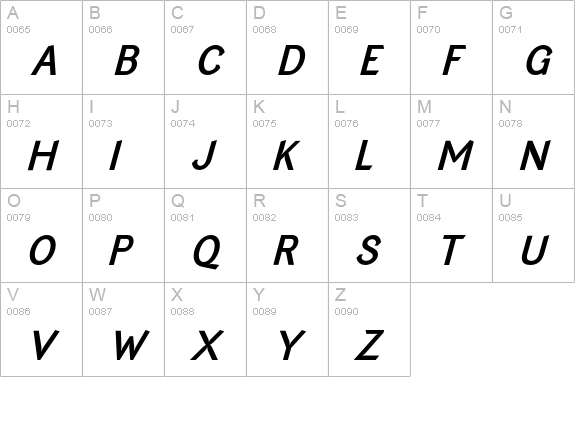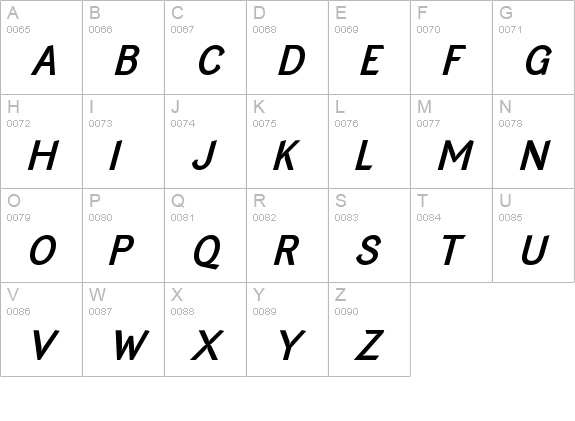
EquipoizeSans-BoldItalic Font Details
EquipoizeSans-BoldItalic is a modern and stylish typeface designed to make a bold statement with its sleek and sophisticated appearance. This unique font strikes the perfect balance between elegance and boldness, making it ideal for a wide range of design projects. Its italicized form adds a touch of flair and dynamism to any text, making it stand out and captivate the reader's attention. What makes EquipoizeSans-BoldItalic even more appealing is that it is available for free download at FontsMarket.com. This means that you can easily access and use this stunning font in your projects without any cost, allowing you to elevate your designs without breaking the bank. Whether you're designing a logo, creating marketing materials, or crafting a stylish website, EquipoizeSans-BoldItalic is sure to make a lasting impression. Download it today and unleash your creativity with this versatile and eye-catching typeface.